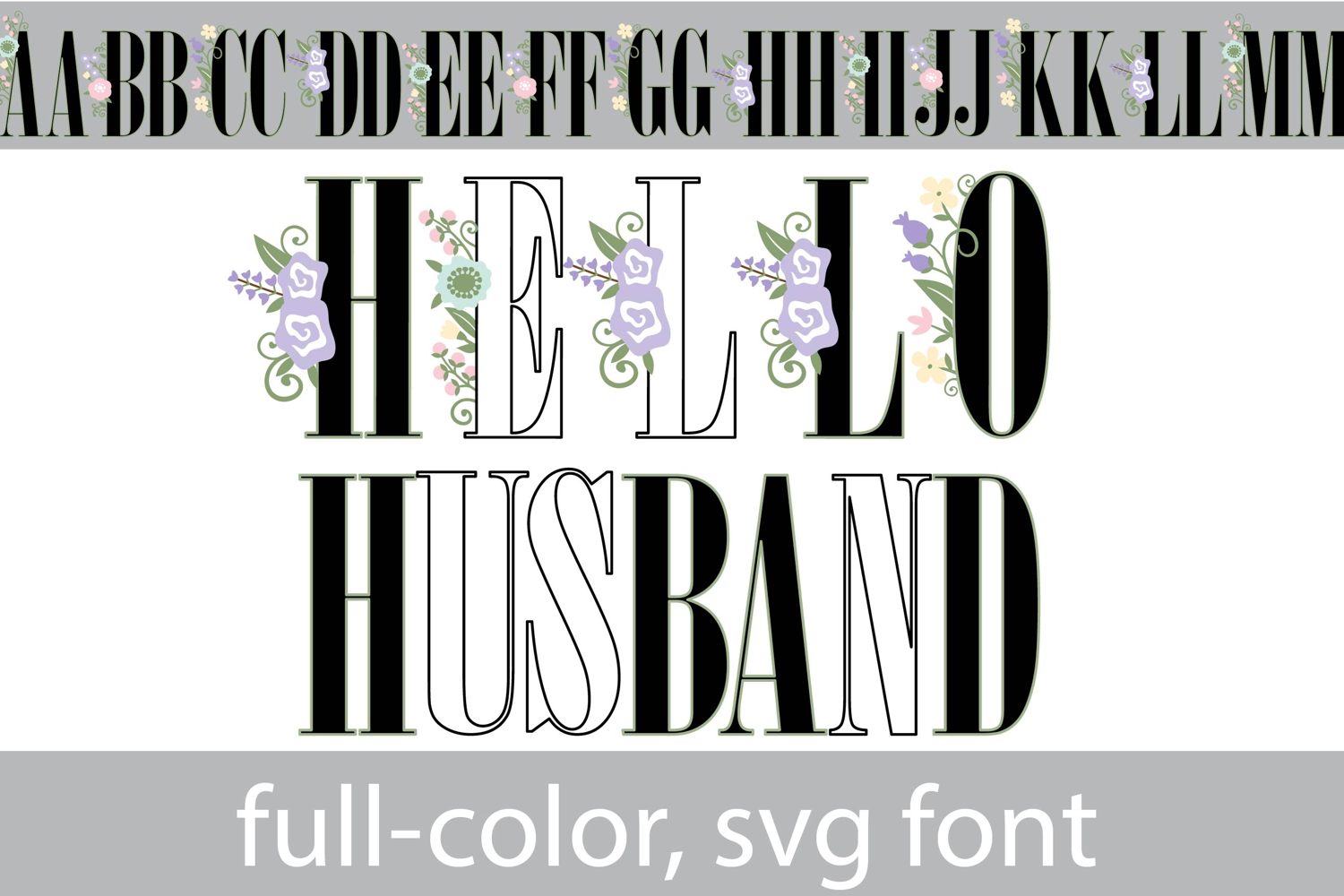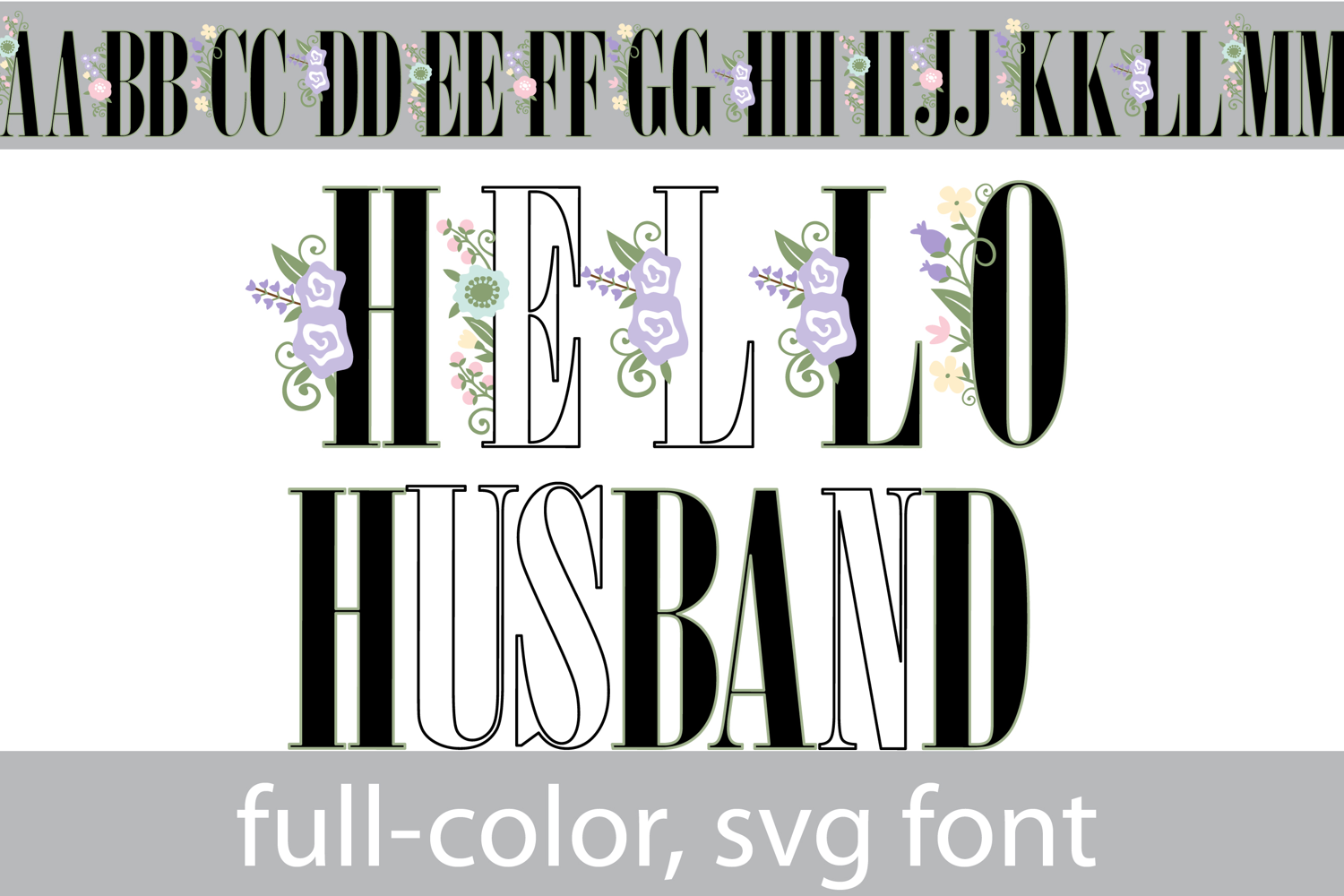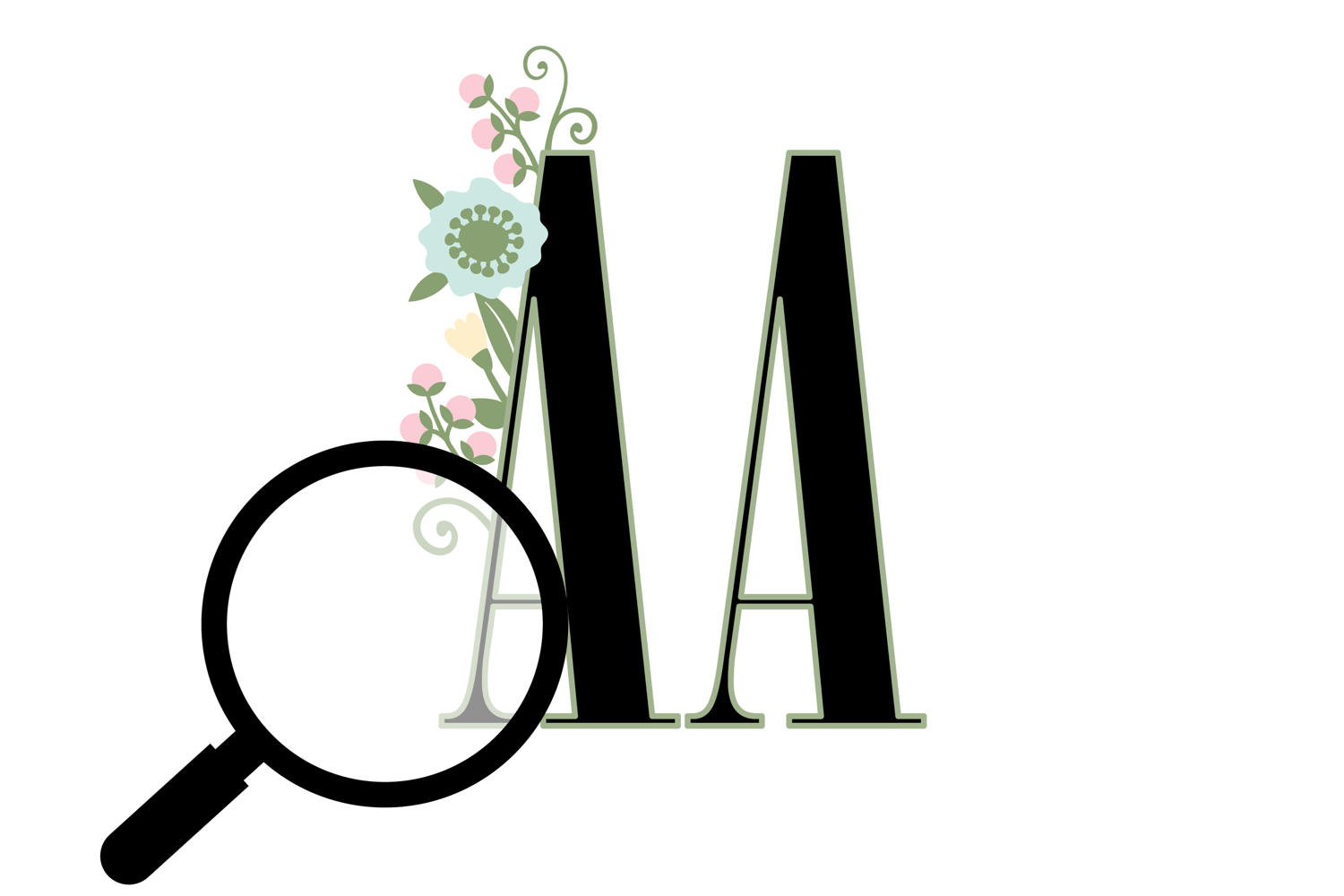
Hello Husband Color Font
This full-color, serif font sports white and lavender roses throughout. There is an alt case of additional colors of each letter that you can access through your system's character map.